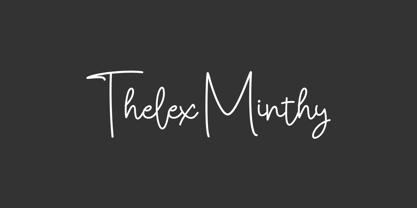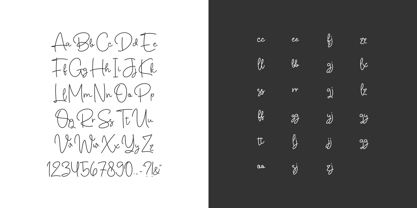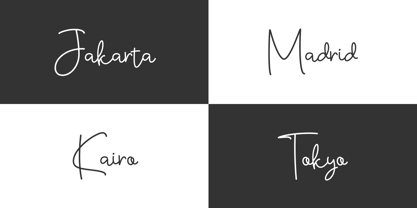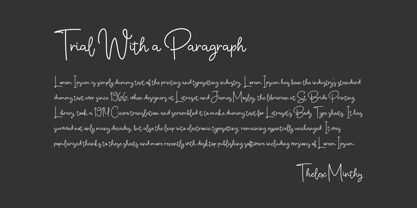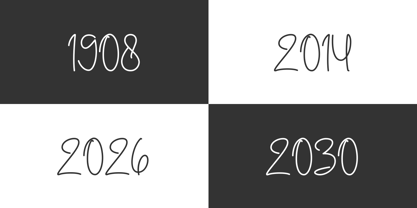
Thelex Minthy
by Rivian
The Thelex Minthy Font Family was designed by Rivian and published by Rivian. Thelex Minthy contains 1 styles. More about this family
Introducing Thelex Minthy, a beautifully crafted monoline script that seamlessly blends modern simplicity with a playful, handwritten charm. This typeface is designed to excel in large display settings and striking headlines, capturing the authentic essence of a casual, free-flowing signature while maintaining excellent legibility. Unlike traditional calligraphy, Thelex Minthy eliminates heavy flourishes in favor of clean, even strokes, resulting in a fresh and contemporary aesthetic that feels both effortless and enjoyable. Perfect for branding, packaging, and UI design, this versatile typeface adds a touch of elegance and personality to any project.